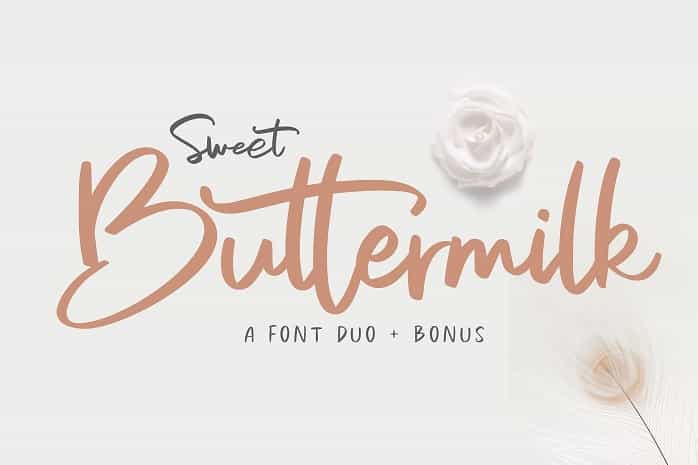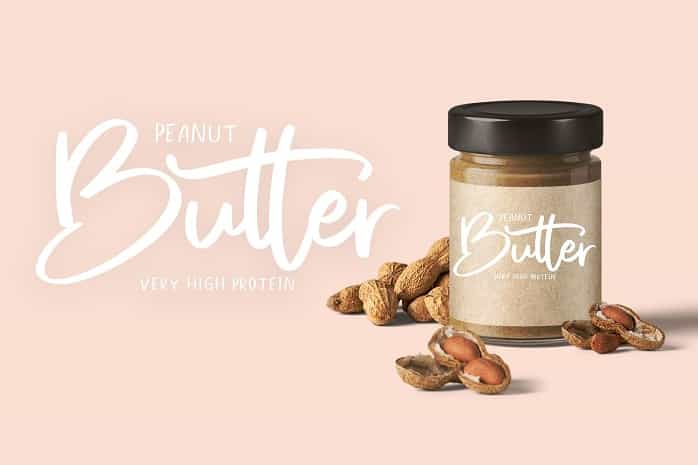
SWEET BUTTERMILK – FONT DUO + BONUS. Get ready for Sweet Buttermilk – A lovingly handwritten script font that brings the heartwarming feeling with all of its charm and friendliness. The irregular, hand-lettered look adds a real human touch to things and comes along with a lot of loving details. Combine all font-styles the way you want, add some ornamental swashes or banners and even a single word becomes magnificent.Sweet Buttermilk gives you the ultimate authentic